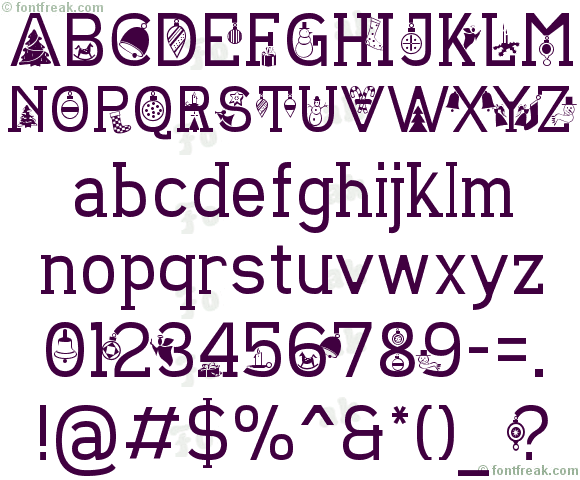
CHRISTMAS SOUNDS
About CHRISTMAS SOUNDS
The CHRISTMAS SOUNDS font by Typeface Leone is a delightful display typeface that embodies the festive spirit of the holiday season. This decorative font features a playful design with bold stroke weights and a charming assortment of festive elements integrated into its letterforms. Each character showcases intricate details reminiscent of Christmas ornaments, candy canes, and holiday symbols, making it visually striking and highly engaging.
The spacing in the CHRISTMAS SOUNDS font is well-balanced, ensuring legibility while allowing its decorative features to shine. This unique blend of artistry and readability makes it an excellent choice for various applications. The font is particularly suited for holiday-themed projects, such as Christmas cards, festive flyers, and seasonal marketing materials. It can also enhance the visual appeal of festive party invitations, holiday-themed social media posts, and even website headers during the holiday season.
The target audience for this font includes graphic designers looking to add a touch of whimsy to their projects, small business owners in the retail or hospitality sectors seeking to create engaging promotional materials, and content creators aiming to infuse their seasonal content with a festive flair.
What sets the CHRISTMAS SOUNDS font apart is its ability to evoke nostalgia and joy while remaining versatile for different design applications. Its unique character and festive elements make it a standout choice for anyone looking to capture the essence of Christmas in their work. With the CHRISTMAS SOUNDS font free download available, you can easily incorporate this charming typeface into your creative projects and spread the holiday cheer.